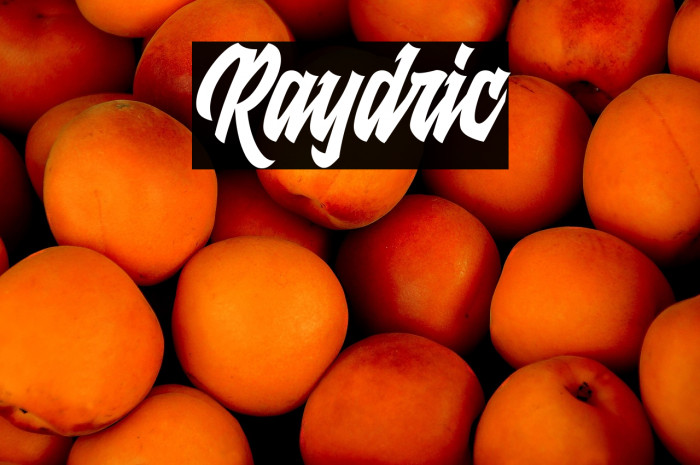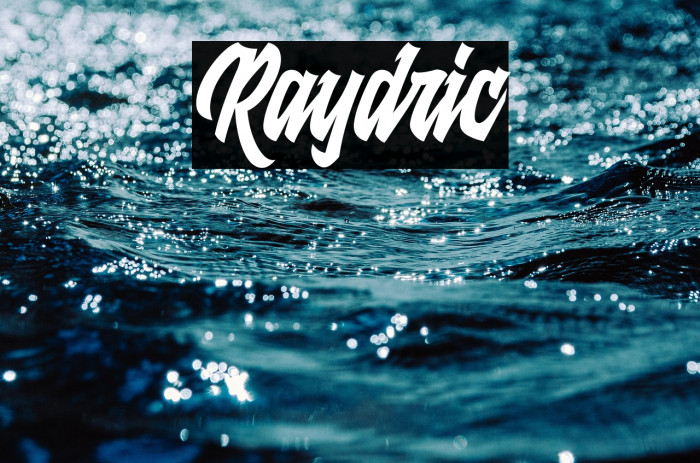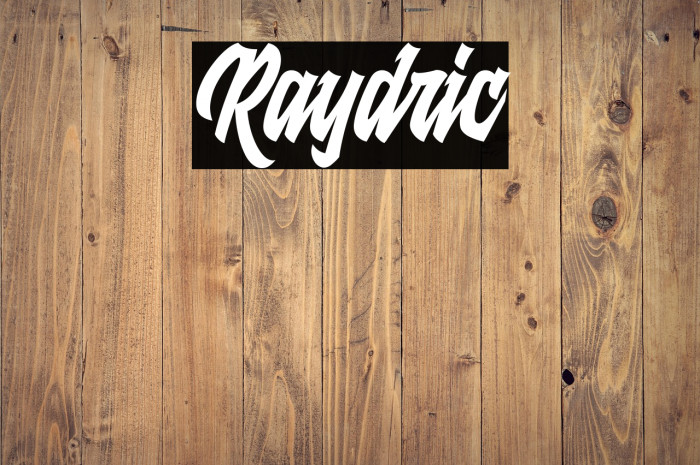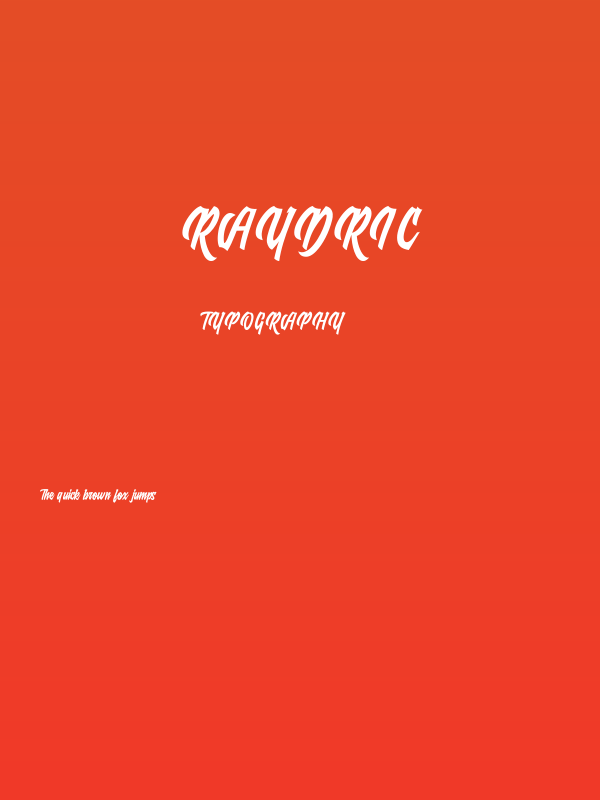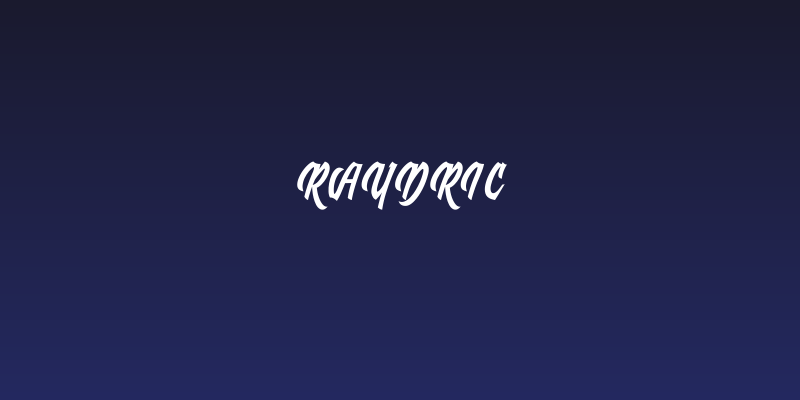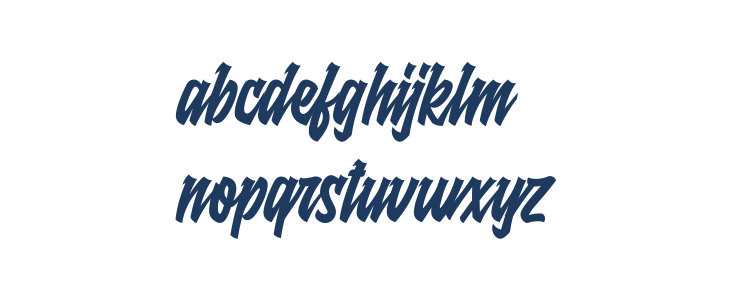
Raydric Font
Raydric Description
This font features a dynamic and flowing script style, characterized by its bold and expressive strokes. The letters are connected in a cursive manner, giving it a handwritten appearance that exudes elegance and flair. The uppercase letters are slightly more embellished, with sweeping curves and flourishes that add a touch of sophistication. The lowercase letters maintain a consistent flow, enhancing readability while retaining the font's artistic charm. Numbers and special characters are designed to match the overall aesthetic, ensuring a cohesive look across all text elements.
Overall StyleDecorative
Use CaseLogos, Headlines, Invitations
Proposed ProjectsIdeal for wedding invitations, greeting cards, logos, and branding materials that require a personal and elegant touch.